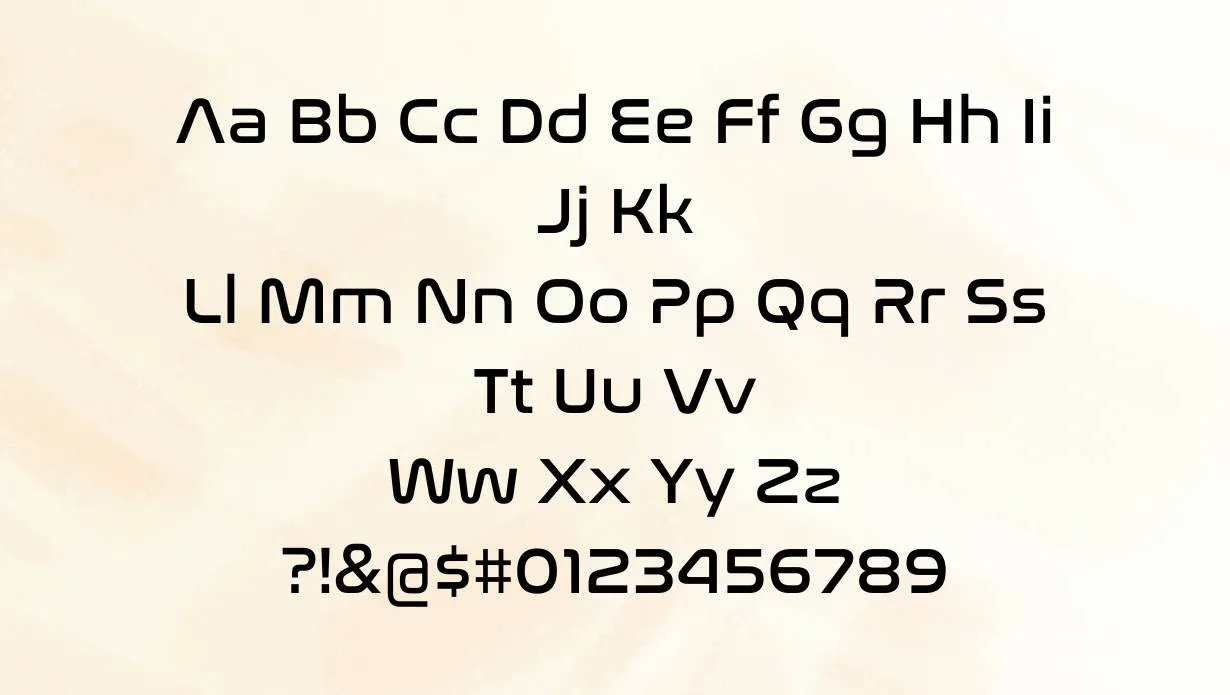
Nasalization Font is a bold and futuristic typeface often chosen for projects related to technology, sci-fi, and modern design.
Its sleek and modern letterforms add a sense of innovation and progress to your designs. The blackjack font offers a comparable style and characters, making it a suitable substitute for the font mentioned.
| Name | Nasalization Font |
| Designer | Ray Larabie |